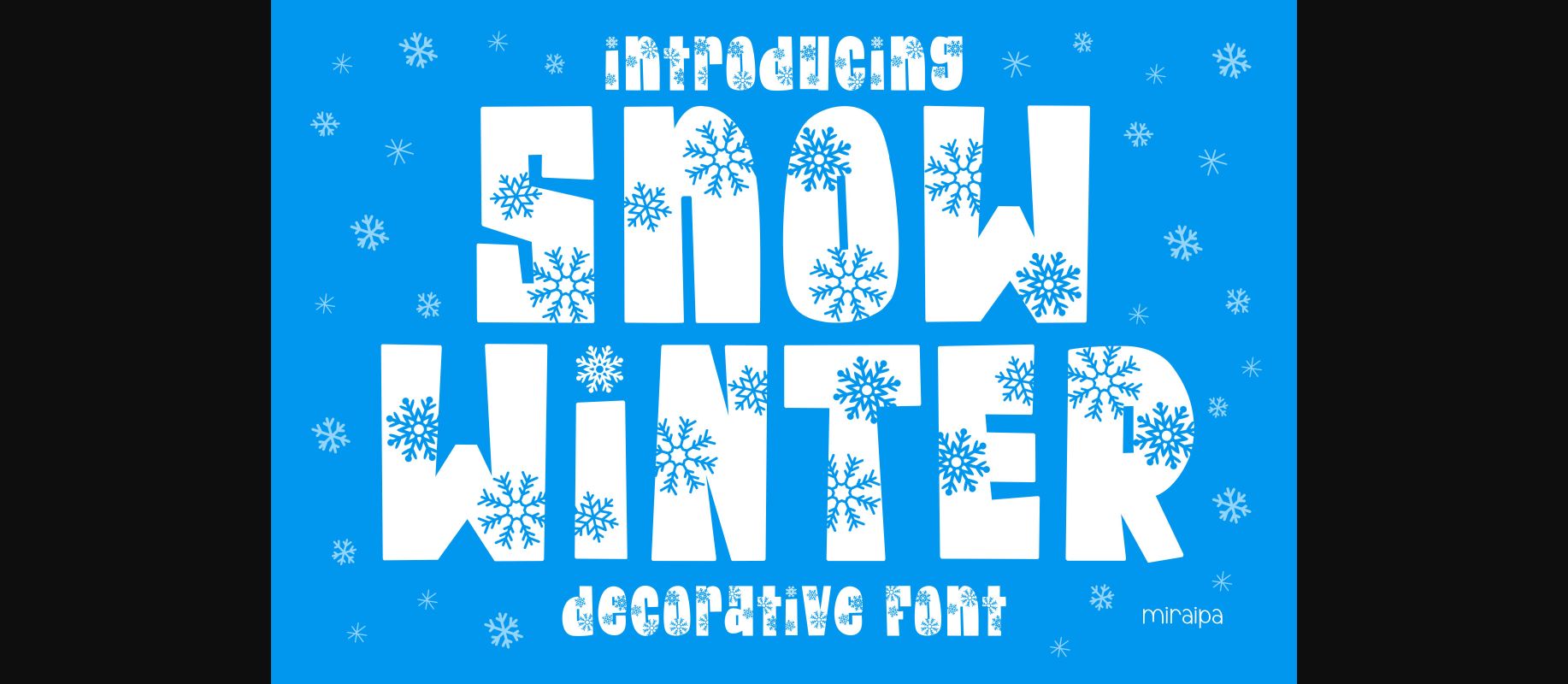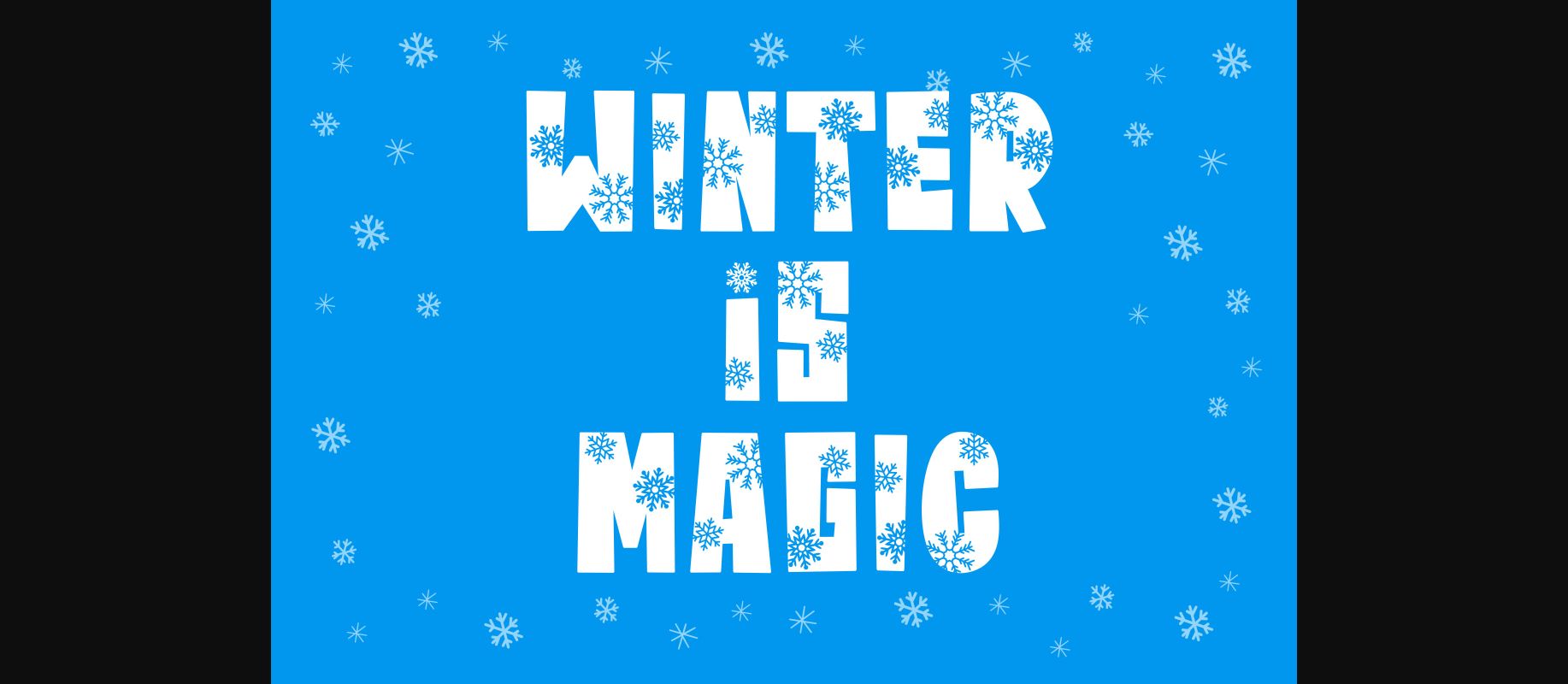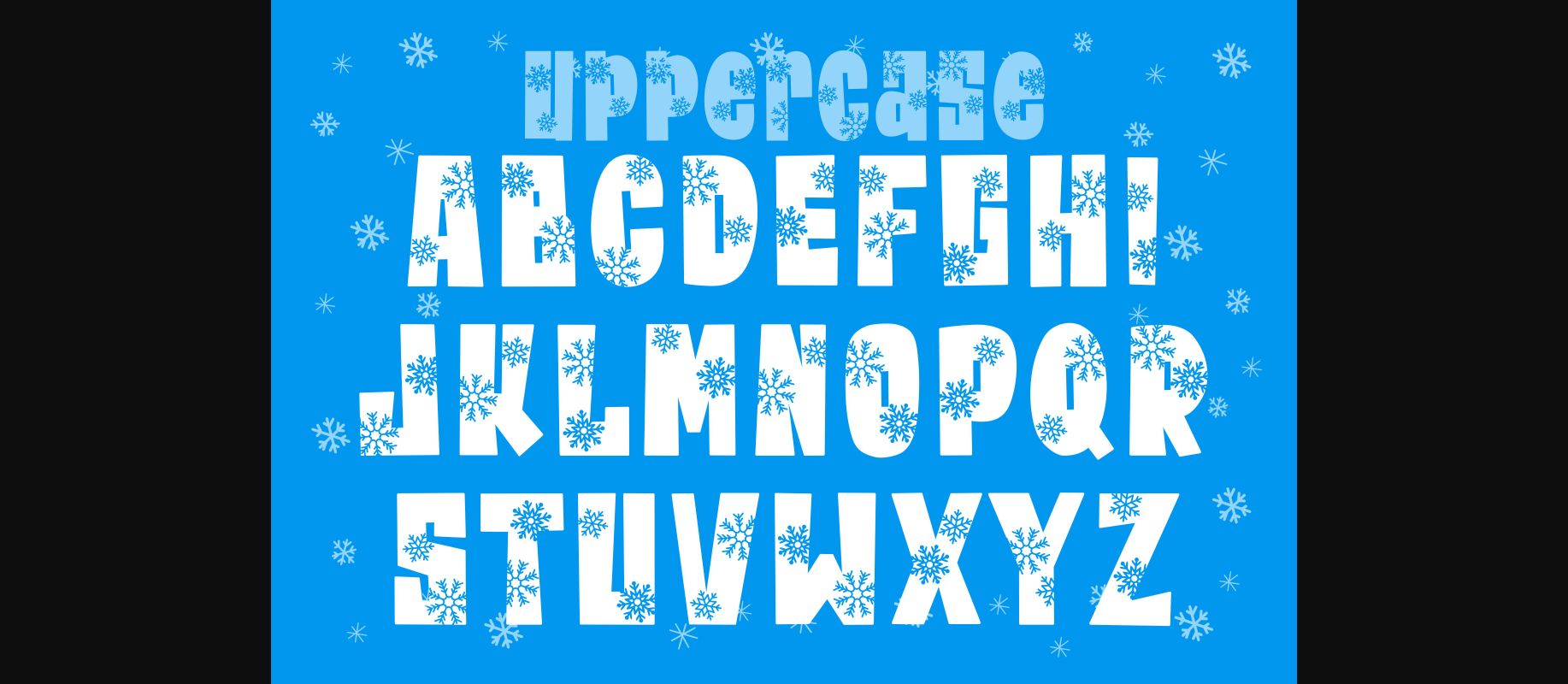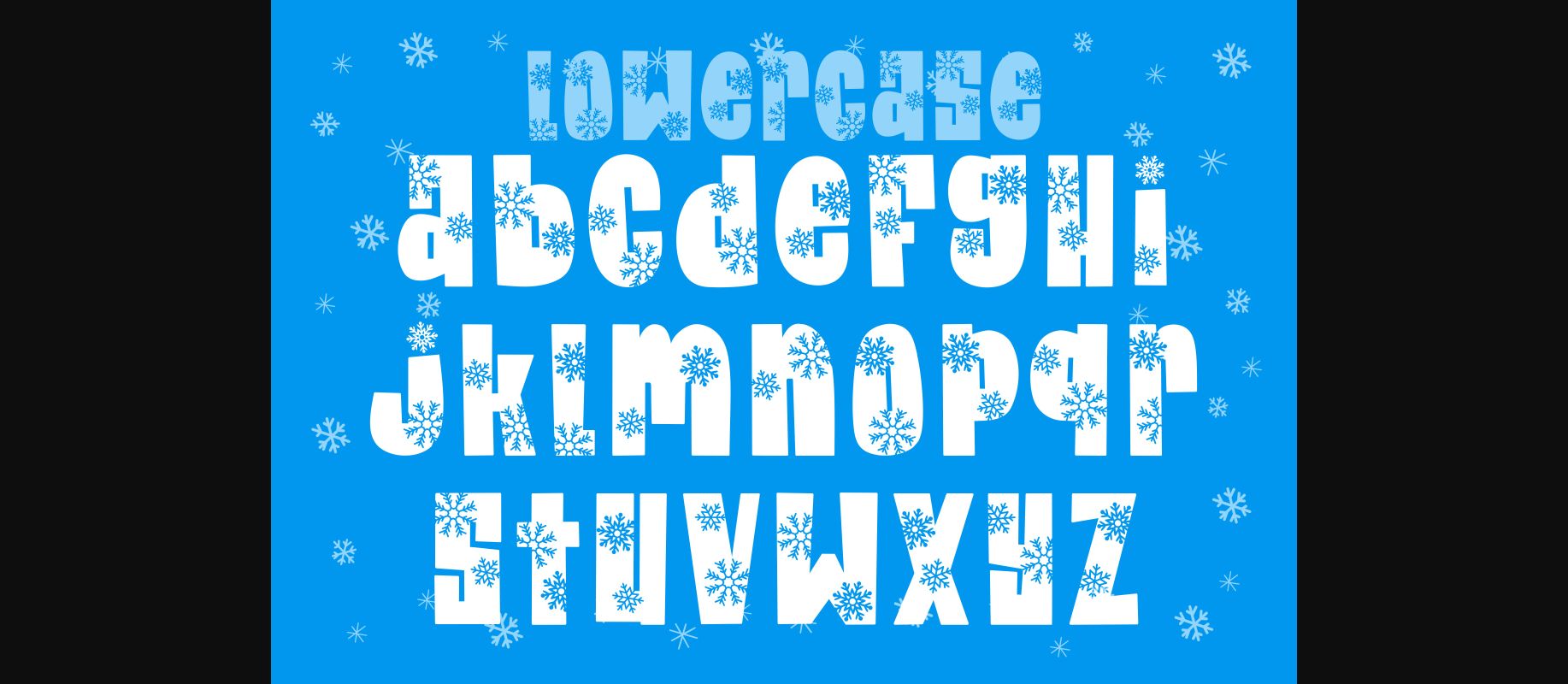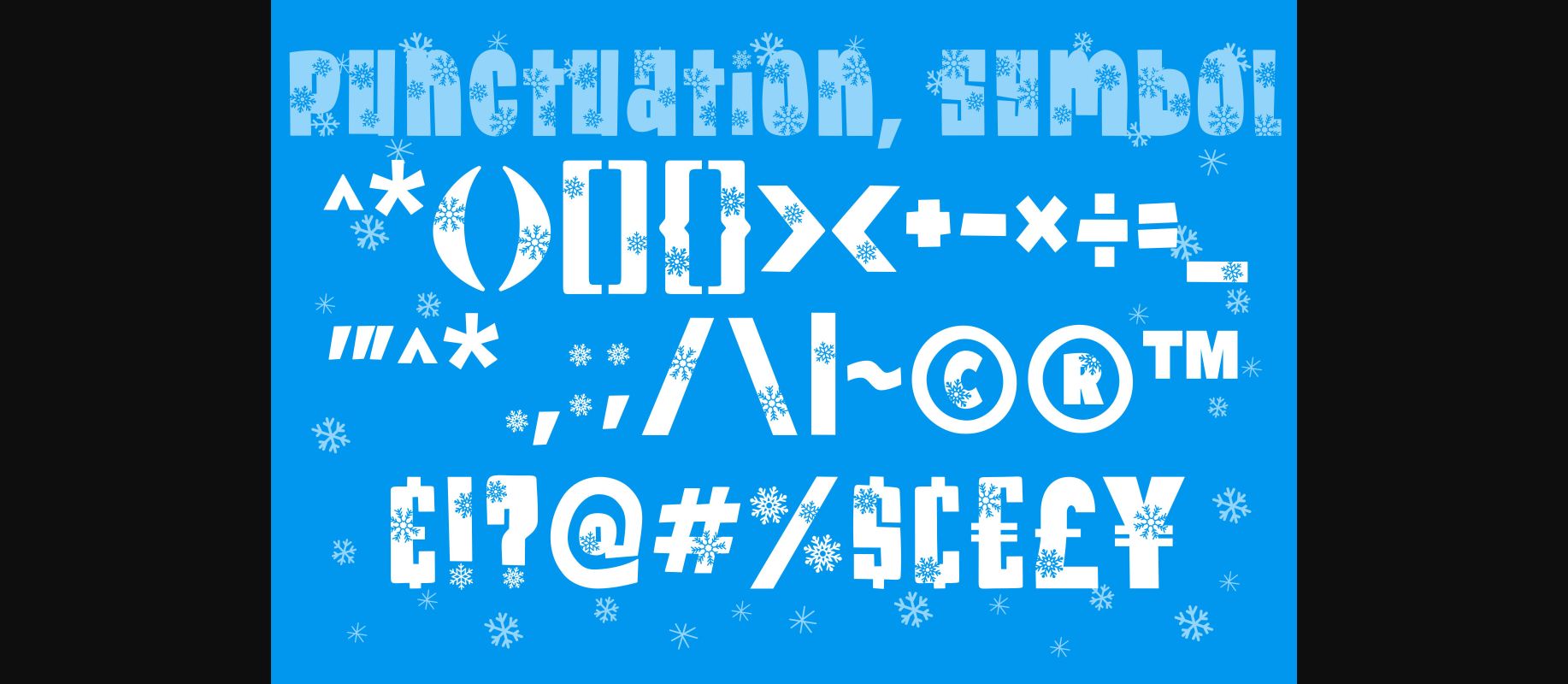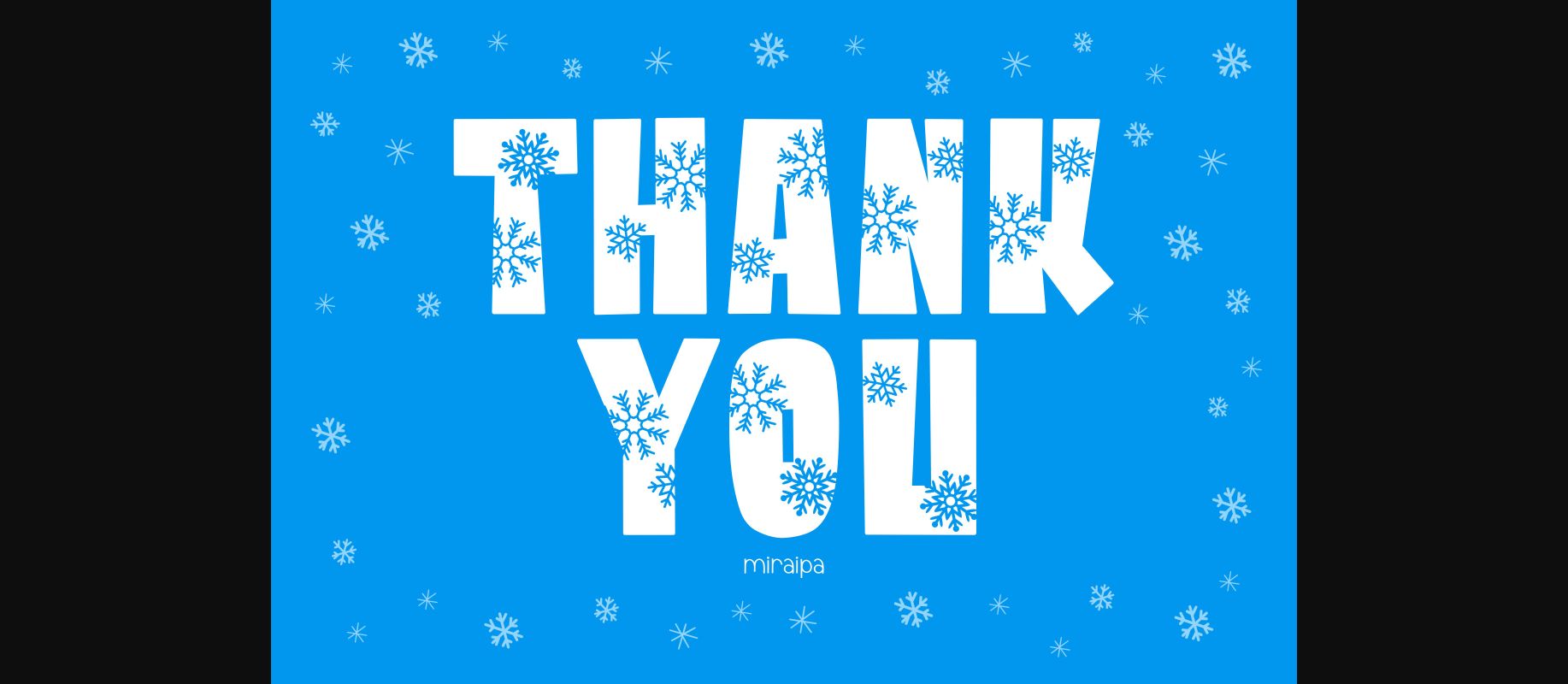
Snow Winter Font
About Snow Winter Font
Snow Winter is a fun and festive decorative font. Whimsical and a bit quirky, this font will brighten up each of your designs. Add it confidently to your projects, and you will love the results. This typeface is perfect for logos, wedding invitations, quotes, advertisements, print, magazines, and more!